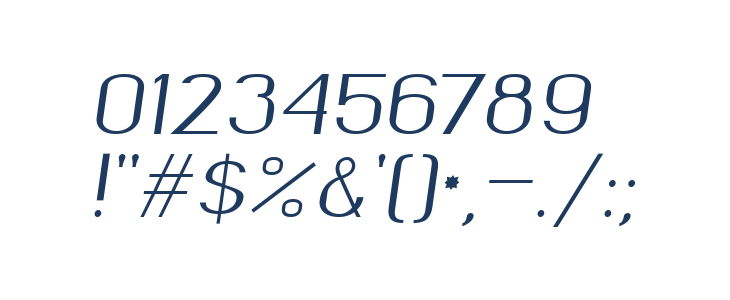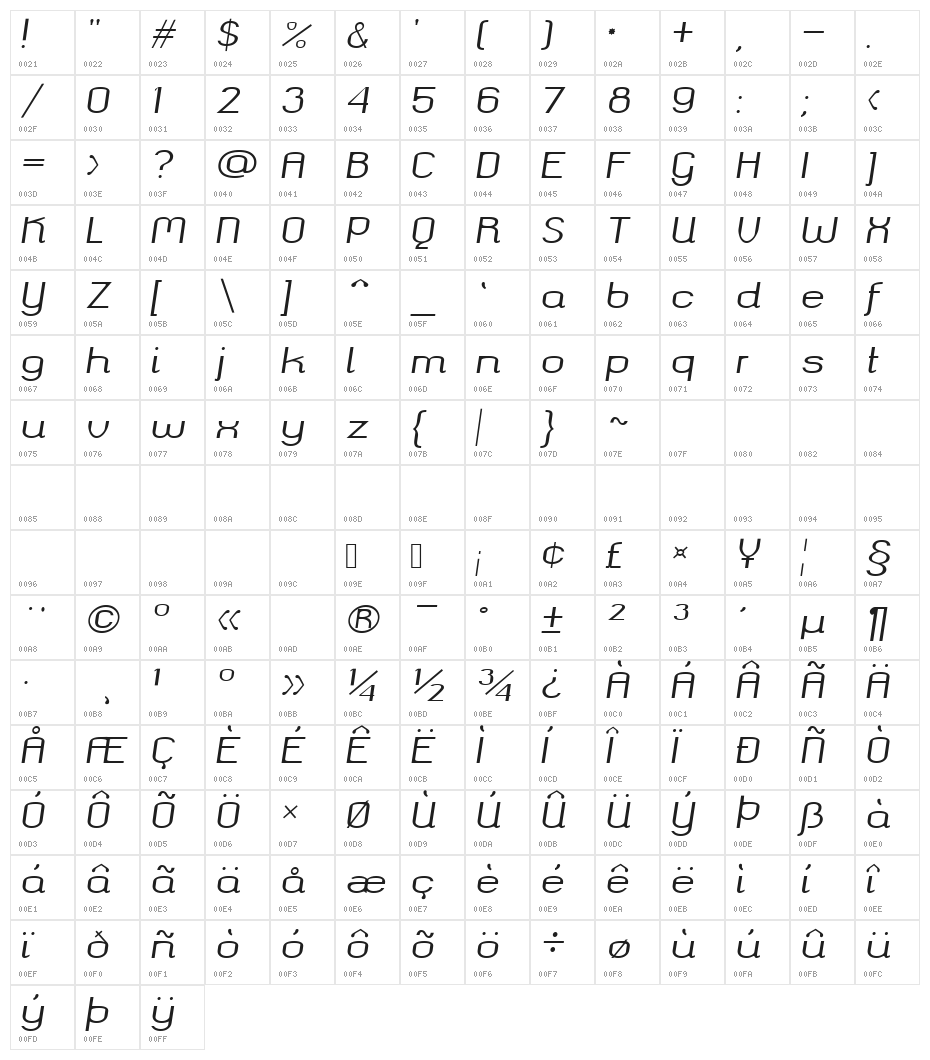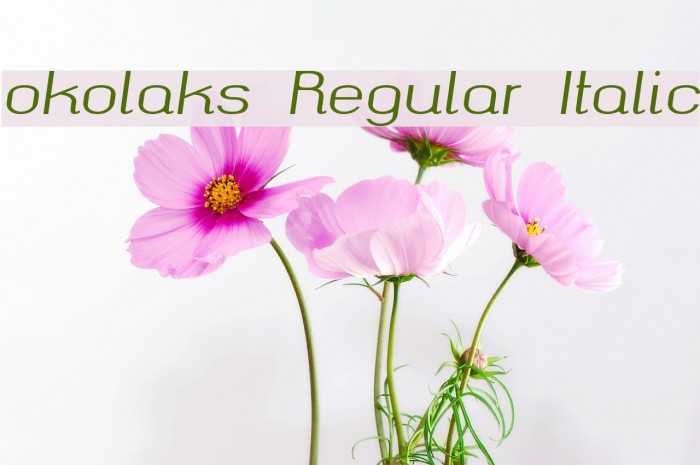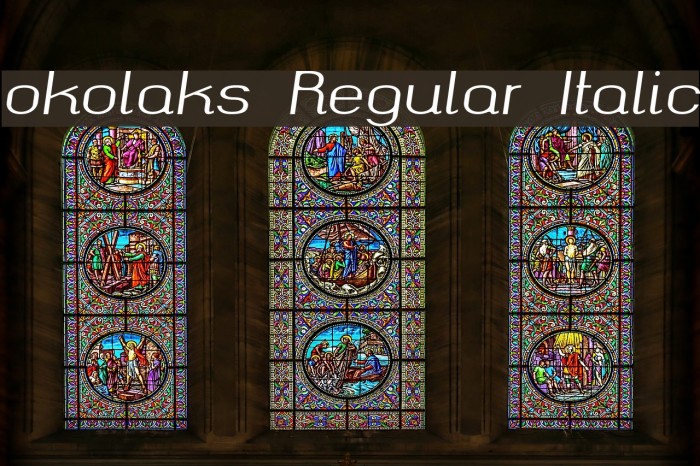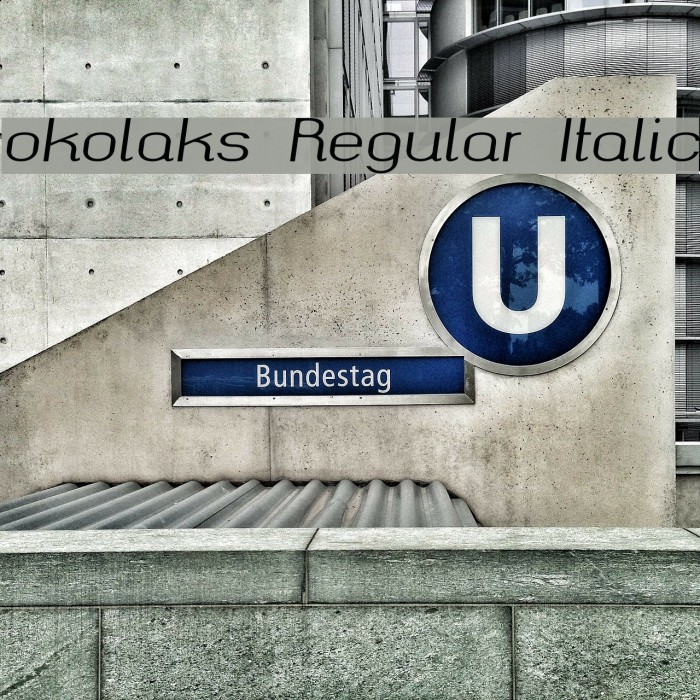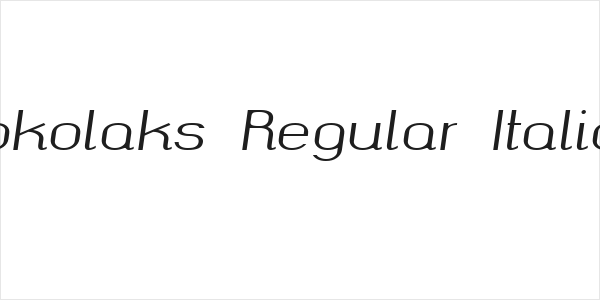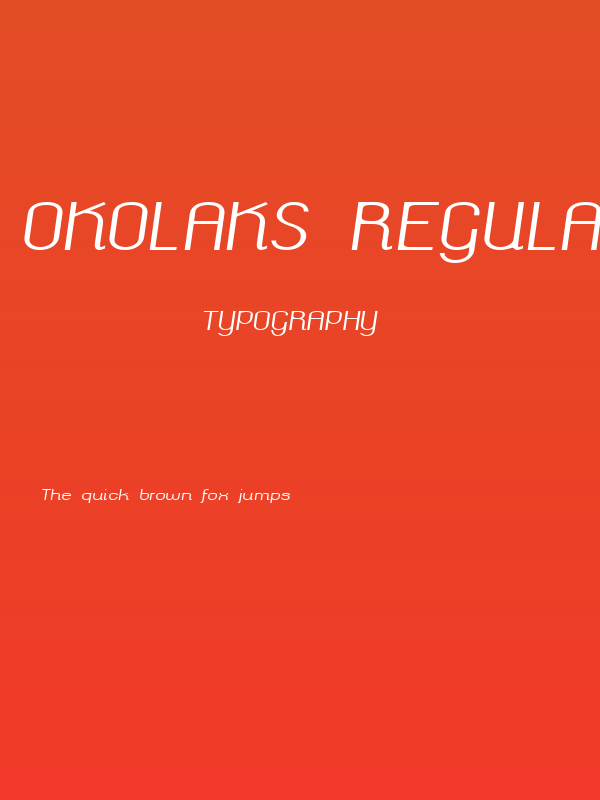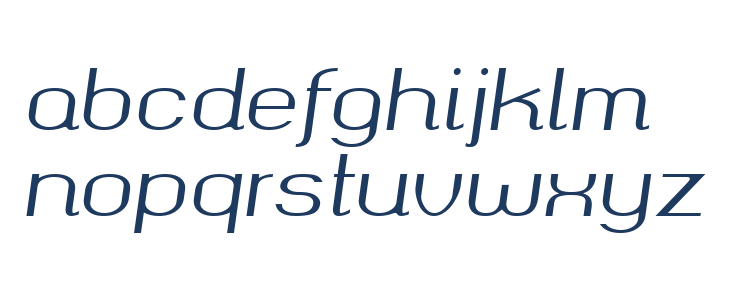
okolaks Regular Italic Font
okolaks Regular Italic Description
This font features a sleek and modern design with a subtle italic slant, giving it a dynamic and fluid appearance. The characters are well-balanced, with a consistent stroke width that maintains readability while adding a touch of elegance. The uppercase letters are tall and slightly narrow, while the lowercase letters have a smooth, rounded form that complements the overall style. The numerals are clear and distinct, making them suitable for various applications. Special characters are thoughtfully designed, maintaining the font's cohesive look.
| Proposed Projects | Ideal for branding, editorial design, and digital interfaces where a modern and elegant touch is desired. |